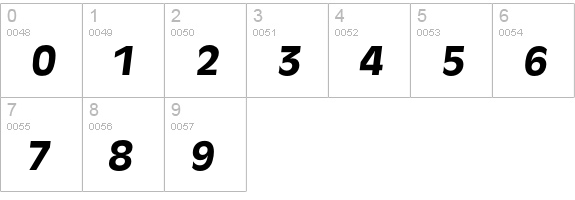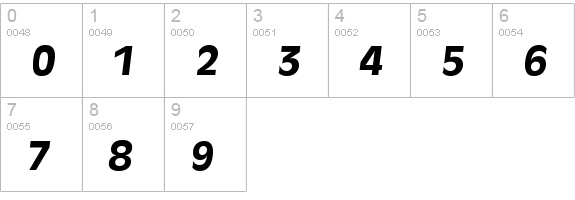
Ravenna-BoldIta Font Details
Ravenna-BoldIta is a stunning and sophisticated font that exudes elegance and power. Its bold and italic design adds a touch of drama to any project, making it the perfect choice for headlines, titles, and branding materials. The strong and assertive strokes of Ravenna-BoldIta demand attention, while its graceful curves and subtle details add a sense of refinement. This font is not only visually captivating but also highly versatile. It seamlessly blends with both modern and classic designs, making it suitable for a wide range of applications. Whether you are designing a sleek and contemporary website or creating a vintage-inspired poster, Ravenna-BoldIta effortlessly adapts to any style, enhancing the overall aesthetic. One of the best aspects of Ravenna-BoldIta is that it is free! You can easily download this font from FontsMarket.com, a trusted source for high-quality fonts. With just a few clicks, you can add this remarkable typeface to your collection and start using it in all your creative endeavors. Ravenna-BoldIta is a truly remarkable font that combines strength and elegance in a unique and captivating way. Its bold and italic nature commands attention, while its timeless design ensures its versatility across various design projects. Don't miss the chance to enhance your creations with this exceptional font, freely available for download at FontsMarket.com.